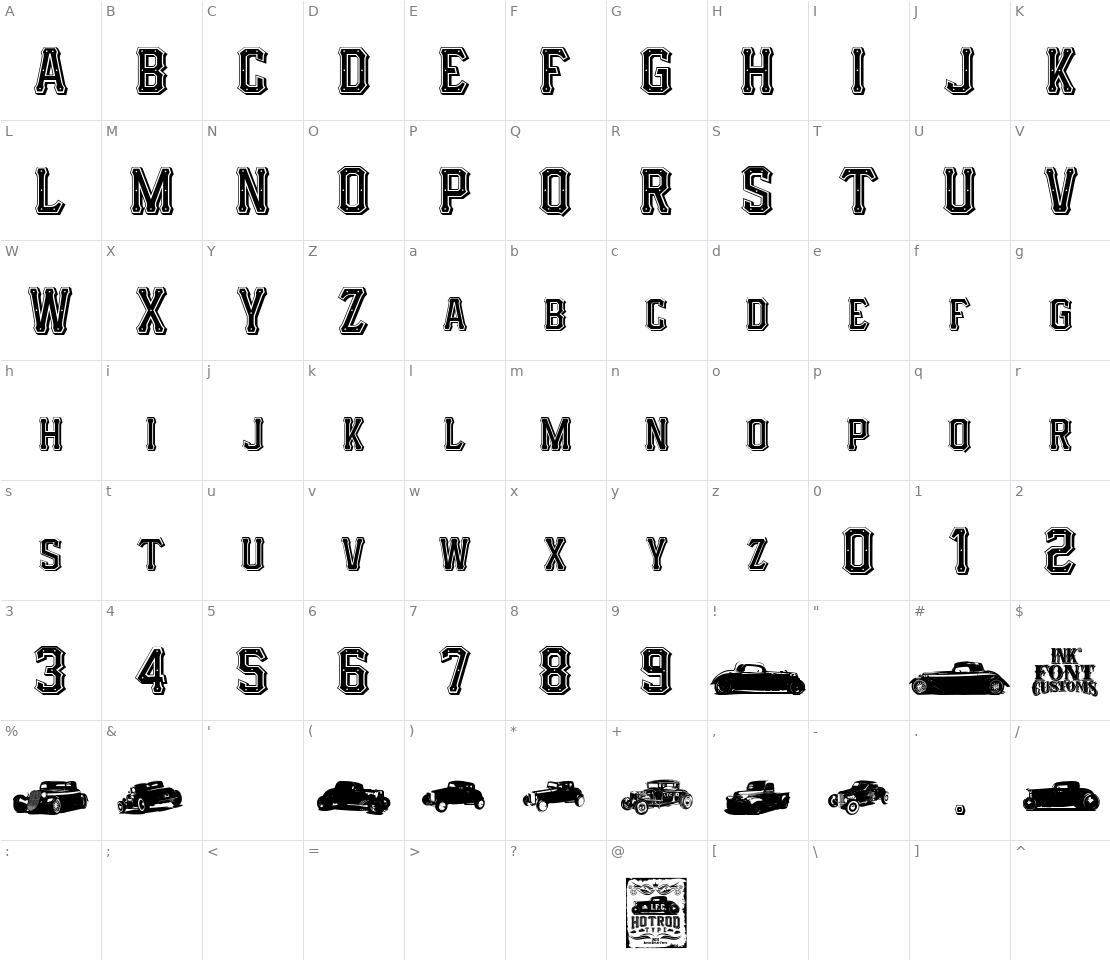
IFC HotRod Type
by Anton Krylov
IFC HotRod Type is a bold, decorative slab serif from Anton Krylov with inline detailing and a subtle 3D effect that gives it the feel of vintage Americana signage. The heavy letterforms carry a western flair without going full saloon, sitting comfortably between old poster typography and hot rod culture graphics. Built for headlines and display use where you want something loud, nostalgic, and unapologetically retro.